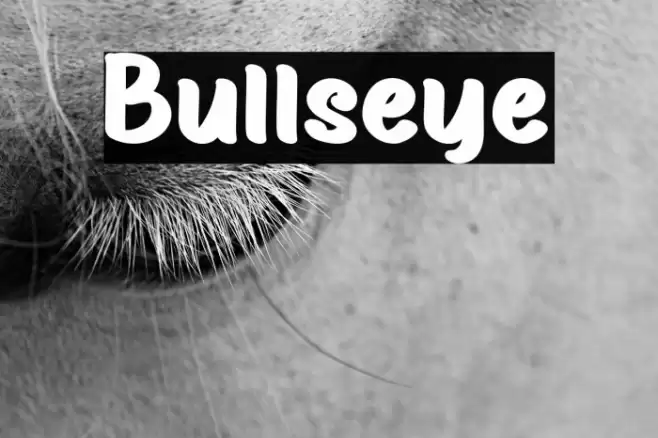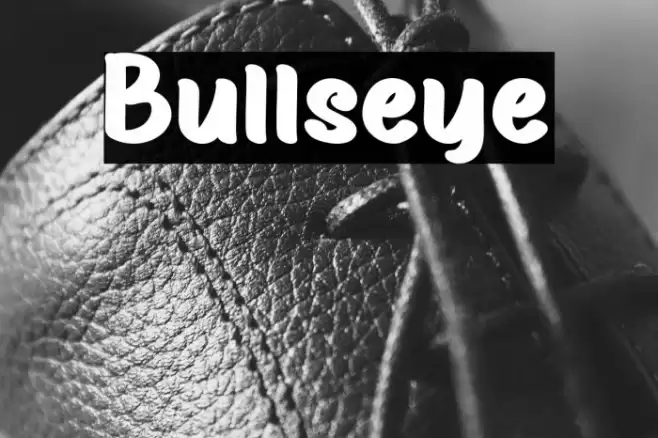
Bullseye Font
Bullseye Description
This playful and bold font features rounded, thick strokes that give it a friendly and approachable appearance. The characters are uniformly wide, with a consistent weight that adds to its cohesive look. The uppercase and lowercase letters maintain a similar style, with slight variations in the curves and angles that add a touch of whimsy. The numerals and special characters are designed to match the overall aesthetic, ensuring a harmonious appearance across all text. This font's unique style makes it stand out, while still being highly legible.
A bold, rounded font with a playful and friendly style from Regular fonts.
- Proposed Projects: Ideal for children's books, playful branding, posters, and creative projects that require a fun and approachable typeface.
- Overall Style: Playful